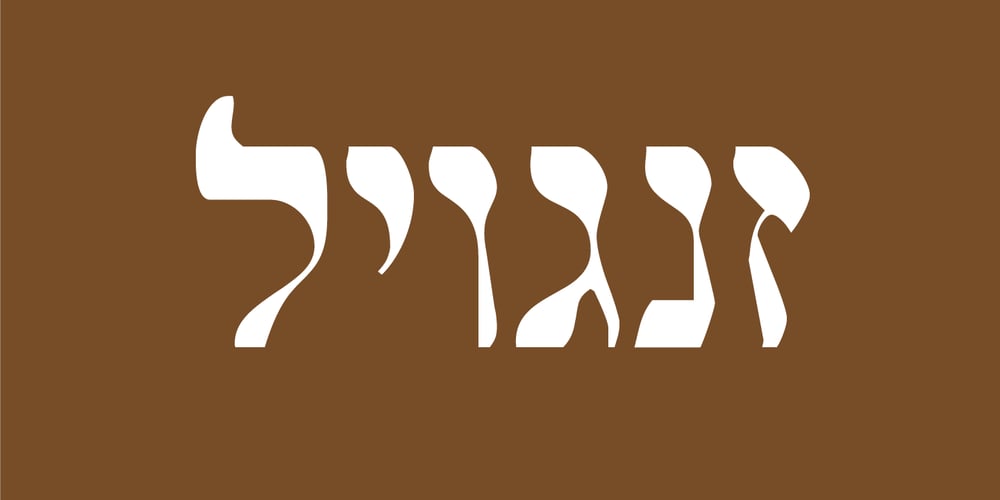
Pashkevil MF
Pashkevil MF font
Pashkevil MF Font Family was designed by Uzi Batish and published by Masterfont. Pashkevil MF contains 3 styles and family package options. Rough, blurred and dirty fonts – perfect for movie posters as well as for tattoo.